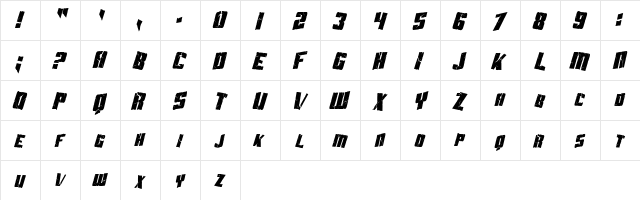
Aftershock Debris Condensed Italic
Design Context for Aftershock Debris Condensed Typeface
Aftershock Debris Condensed is a composed and adaptable typeface that performs quietly and consistently across a wide range of design contexts. The slanted form adds forward momentum and visual energy. The condensed width makes it efficient for tight spaces without sacrificing legibility.
Pro Tip: Use Aftershock Debris Condensed for emphasis, pull quotes, and subheadings where its slanted energy can add rhythm to the layout.